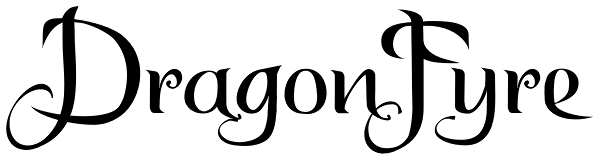
DragonFyre
Beware: Here be Dragons! It Be Dangeroues to Venture Yonder! This warning, inscribed on a rock at the entrance of a cave in an inaccessible mountain in the far north of Scotland, provided the inspiration for the font DragonFyre. While I have not...